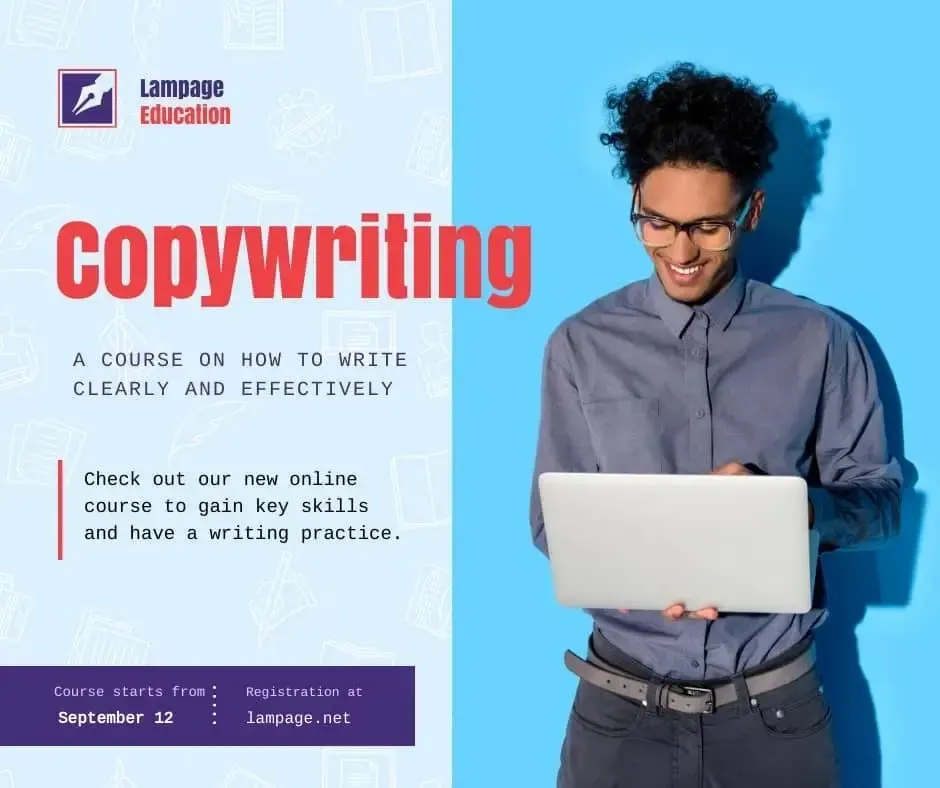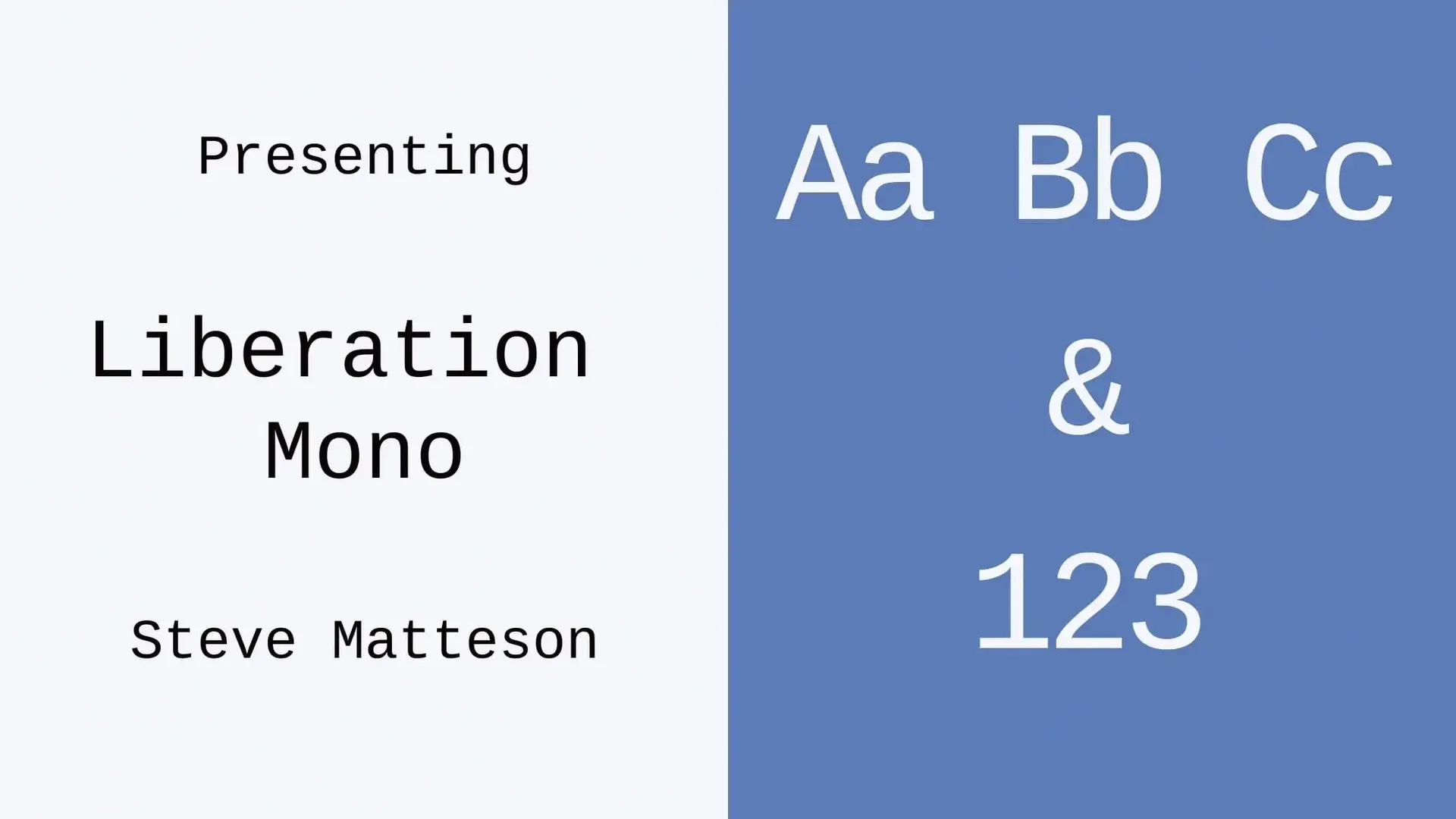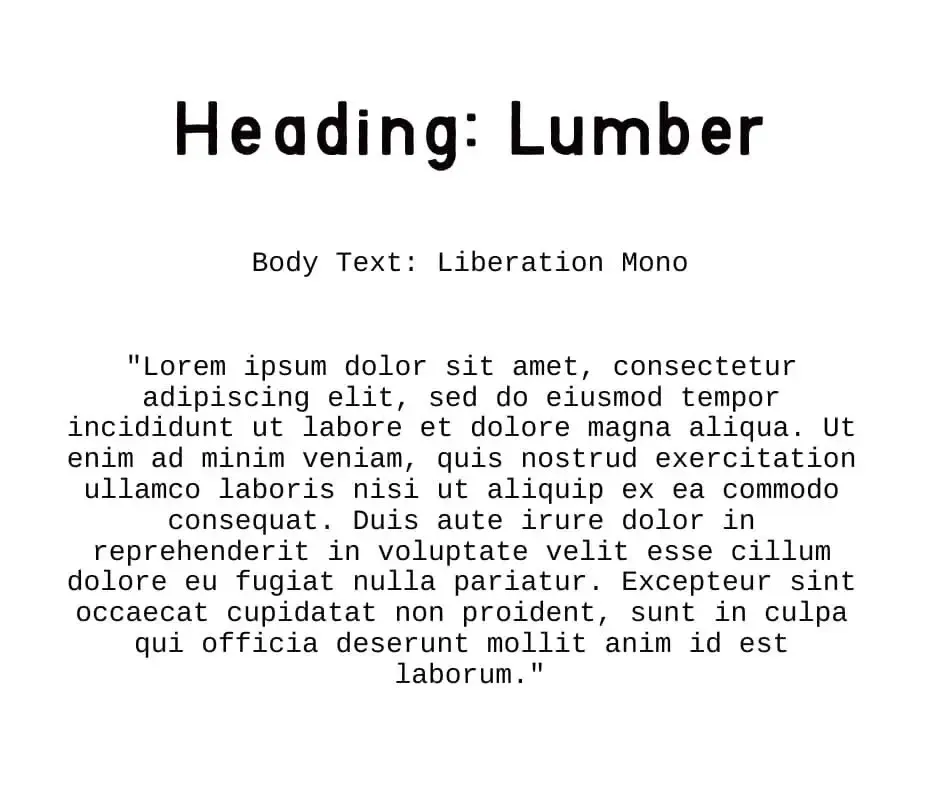
About Liberation Mono Font
Monospaced typefaces, sometimes called fixed-pitch, fixed-width, or non-proportional fonts, are those in which each letter and character occupies the same amount of horizontal space. Today we’ll look at Liberation Mono, a free monospace typeface. Liberation Mono font download is available here.
Liberation is a collective name for four TrueType font families, one of which is Liberation Mono. It is much more similar to Liberation Sans than Monotype’s Courier New, but its metrics match Courier New. Liberation mono is one of the most widely known monospace fonts. It was designed by Steve Matteson and published through Ascender Corporation. This font is based on Ascender Sans and Ascender Uni Duo.
The entire font family was developed over the course of two variations. Released in May 2007 and January 2008, respectively; both are available now. Liberation Mono is compatible with the most widely used fonts on Microsoft Windows, as well as the Microsoft Office software package, which includes the Microsoft Office suite.
Usage of Liberation Mono Font
Monospace fonts have commonly employed in early computers and computer terminals, which had relatively limited graphical capabilities and were prone to malfunction. Even though computers are now capable of displaying a wide variety of typefaces, monospace fonts are currently on the decline. However, the current design trends show some use of these fonts. So let’s see where you can use the Liberation Mono font.
You can use Liberation Mono font on your website. This type of font is noticeable on many websites nowadays. So, use this font on your website without any hesitation. In addition to this, we see the use of Monospace font in many books, so Publishers can also use liberation Mono font for book printing. Quotes design is another place where you can use it.
Fonts Similar To Liberation Mono
- Hack.
- Menlo.
- Prima Sans Mono.
- Vera Sans Mono.
- Operator.
- Noto Mono.
- SF Mono.
Liberation Mono Font Combination
Lumber font + Liberation Mono
If you’re working on a monospace font, try using another monospace font as a combination. With Liberation Mono, you guys can use Lumber font. Use Lumber for big text/heading and Liberation Mono for small text.
Is Liberation Mono A Good Font?
Yes, Liberation Mono is a contemporary, unique, and elegant monospace font.
What Type Of Font Is Liberation Mono?
Liberation mono is one of the most extensively used monospace fonts on the market today.